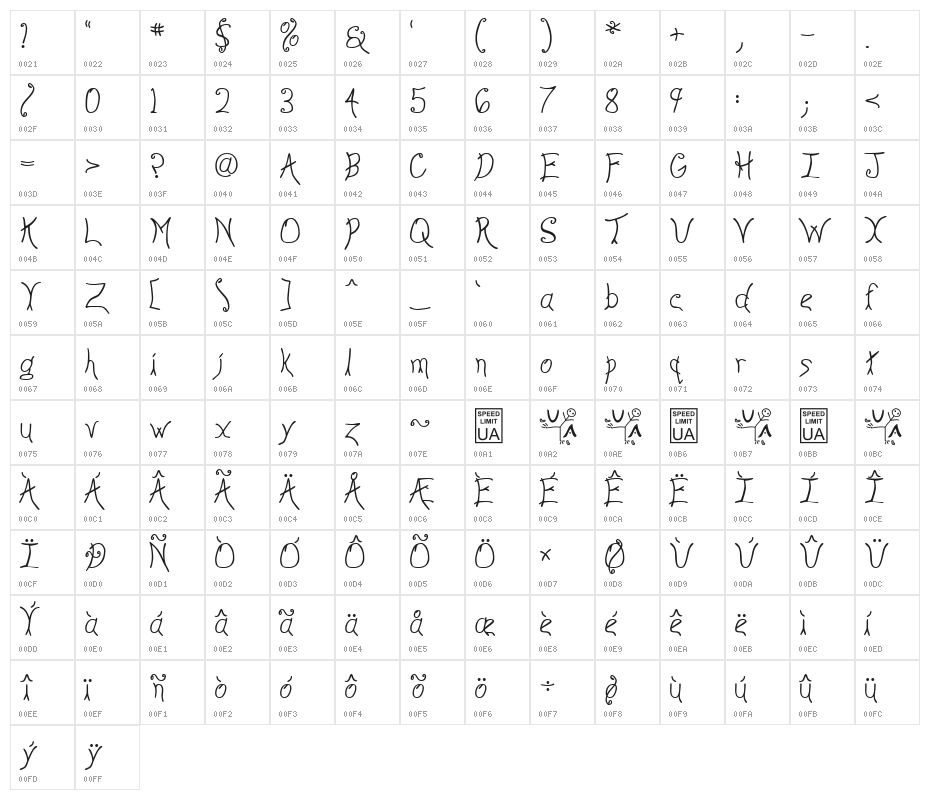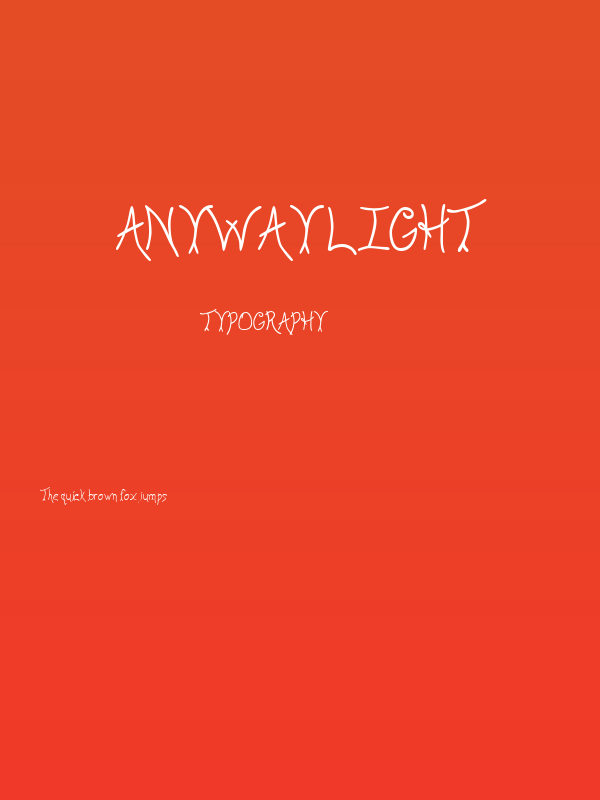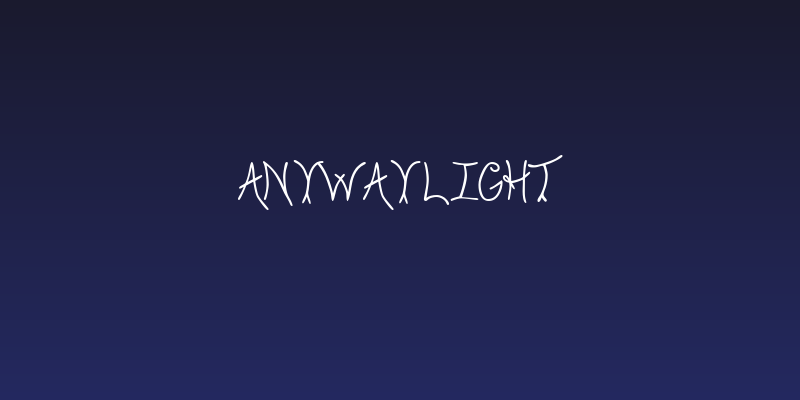
Anyway Light Font
Anyway Light Description
This font features a whimsical and playful design with a handwritten style. The characters are uniquely crafted with a mix of curves and straight lines, giving them a lively and dynamic appearance. The uppercase letters are bold and expressive, while the lowercase letters maintain a consistent flow, adding to the font's charm. Numbers and special characters are equally distinctive, with some characters featuring playful swirls and loops. The overall design is informal and artistic, making it suitable for creative projects that require a touch of personality and flair.
| Proposed Projects | Ideal for greeting cards, children's books, creative posters, and artistic branding. |